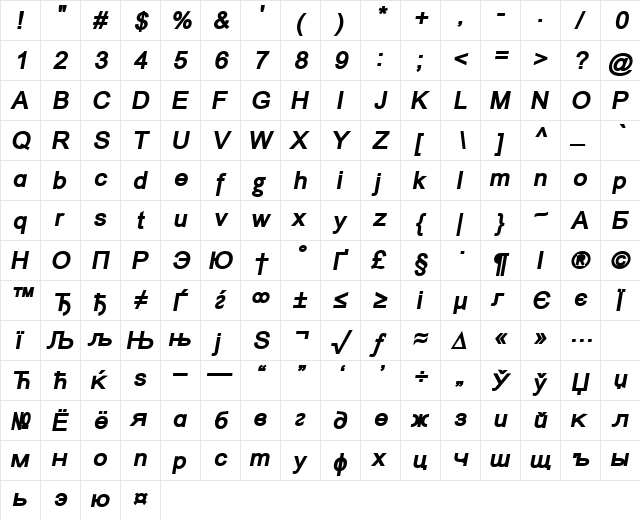
ER Univers Mac Bold Italic Font Preview
Design Context for ER Univers Mac Typeface
ER Univers Mac takes a measured approach to typography — its balanced proportions and neutral character make it a reliable workhorse for both digital and print work. The dynamic lean of this cut emphasises speed and emphasis in any layout. The heavy weight commands attention and anchors typographic hierarchies.